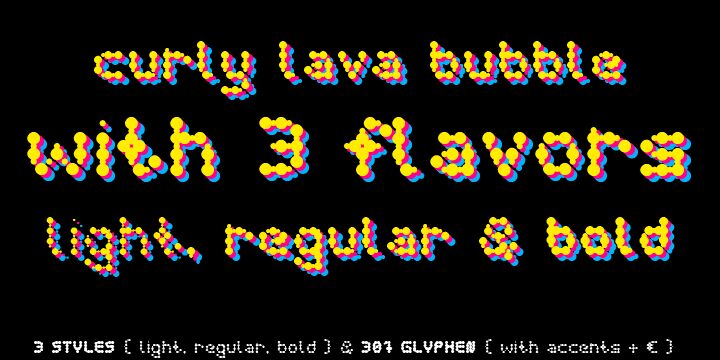
Curly Lava Bubble, created by Manuel Viergutz, is a free decorative display font shaped from clusters of round droplets. Each letter has an open handmade silhouette with uneven joins and changing dot sizes that suggest fizzing foam or cooling lava.
Poster lettering is its strongest role, particularly for playful projects centered on sweets, bubbles, or cartoon science. The soft circular forms also suit candy packaging and children's entertainment, where the lettering can echo confectionery shapes, microbes, or comic sound effects. On merchandise, the connected beads can become part of a mascot, bubbly border, or illustrated emblem instead of ordinary type.
Curly Lava Bubble is a font with three styles: Regular, Bold, and Light. It contains 307 glyphs, including accented characters.